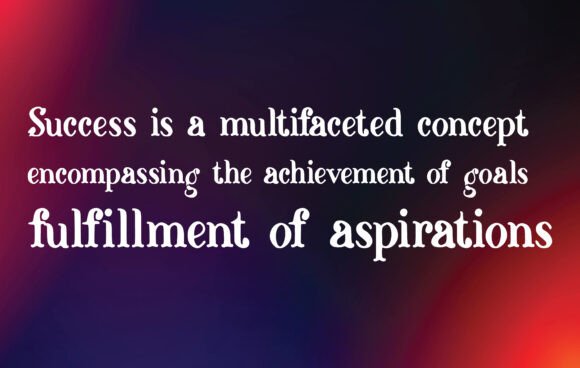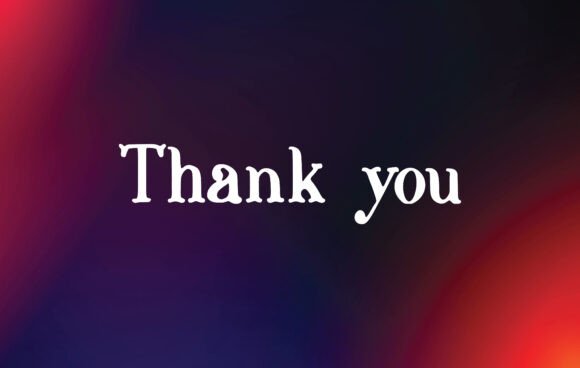
Fuchsia Font: Elevate Your Designs with a Lovely Handwritten Style
Are you looking for a font that can add a touch of elegance and sophistication to your designs? Look no further than the Fuchsia Font. This beautiful handwritten font is perfect for designers and crafters who want to take their creative ideas to the next level. With its lovely and charming style, Fuchsia Font is ideal for creating eye-catching logos, branding, and quotes that will leave a lasting impression.
The Characteristics of Fuchsia Font
Fuchsia Font is a unique and versatile font that boasts a range of characteristics that make it perfect for various design projects. Some of its key features include:
- Handwritten style: Fuchsia Font has a beautiful handwritten style that gives it a personal and organic feel.
- Unique letterforms: Each letter in the Fuchsia Font is carefully crafted to create a distinctive and stylish look.
- Legible and readable: Despite its ornate style, Fuchsia Font is highly legible and readable, making it perfect for use in a variety of design projects.
- Versatile: Fuchsia Font can be used in a range of design projects, from logos and branding to quotes and social media graphics.
Why Choose Fuchsia Font?
So, why should you choose Fuchsia Font for your design projects? Here are just a few reasons:
- Adds elegance and sophistication: Fuchsia Font adds a touch of elegance and sophistication to any design project, making it perfect for high-end brands and luxury products.
- Creates a personal connection: The handwritten style of Fuchsia Font creates a personal connection with the viewer, making it perfect for use in branding and advertising.
- Versatile and adaptable: Fuchsia Font can be used in a range of design projects, from digital graphics to print materials.
How to Use Fuchsia Font in Your Designs
Using Fuchsia Font in your designs is easy. Here are a few tips to get you started:
- Logos and branding: Use Fuchsia Font to create eye-catching logos and branding materials that will help your business stand out.
- Quotes and social media graphics: Use Fuchsia Font to create inspiring quotes and social media graphics that will engage your audience.
- Digital graphics: Use Fuchsia Font to create stunning digital graphics, such as blog headers and email newsletters.
- Print materials: Use Fuchsia Font to create beautiful print materials, such as business cards and brochures.
Tips for Getting the Most Out of Fuchsia Font
Here are a few tips for getting the most out of Fuchsia Font:
- Experiment with colors: Fuchsia Font looks great in a range of colors, so don’t be afraid to experiment and find the perfect color for your design.
- Pair with other fonts: Fuchsia Font pairs well with other fonts, so try combining it with a sans-serif font for a stylish contrast.
- Use it sparingly: While Fuchsia Font is beautiful, it can be overwhelming if used too much. Use it sparingly to create a focal point in your design.
In conclusion, Fuchsia Font is a lovely and beautiful handwritten font that has the potential to take your creative ideas to the highest level. With its unique letterforms, legible and readable style, and versatile adaptability, Fuchsia Font is the perfect choice for designers and crafters who want to create eye-catching logos, branding, and quotes. So why not give it a try and see the difference it can make in your designs?